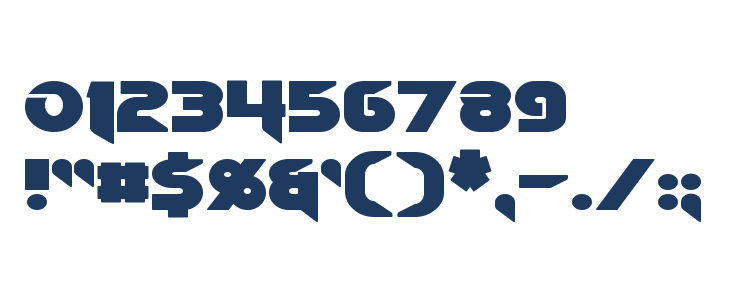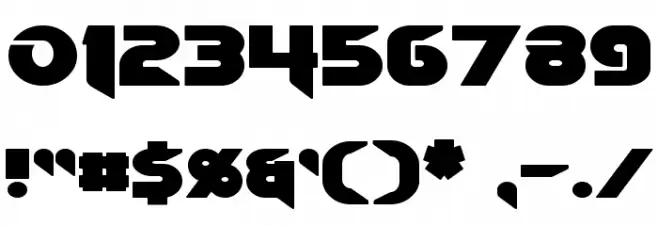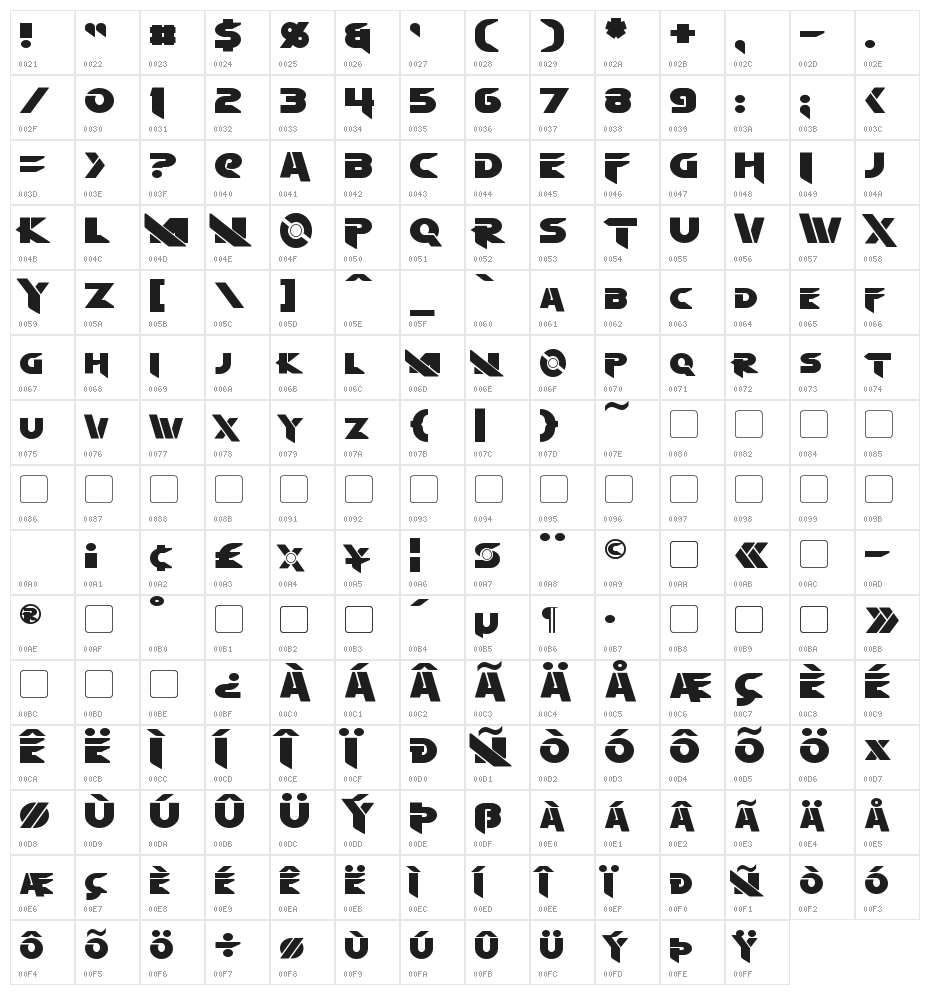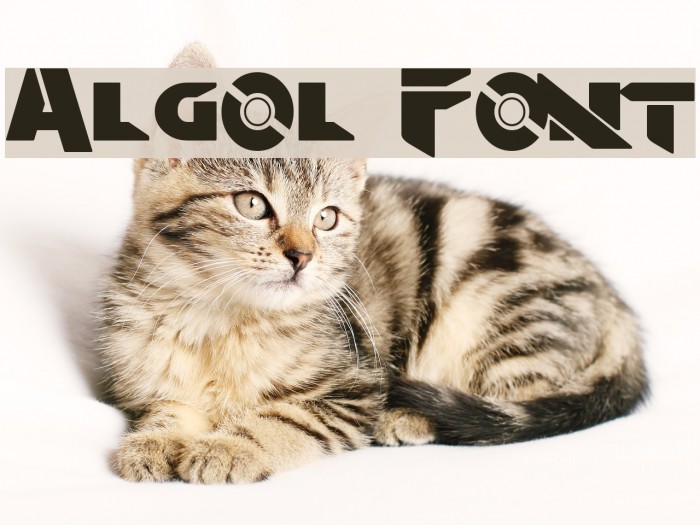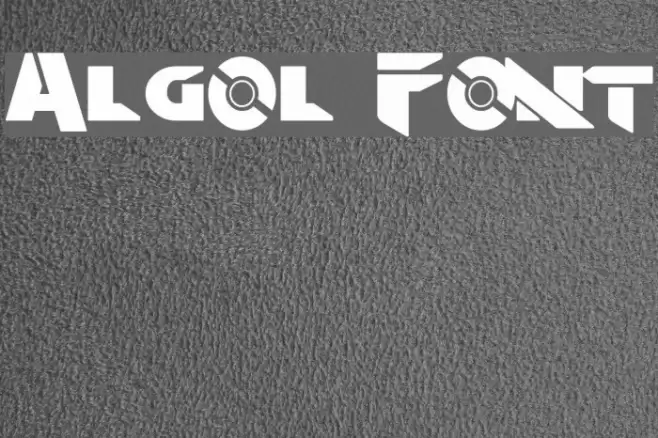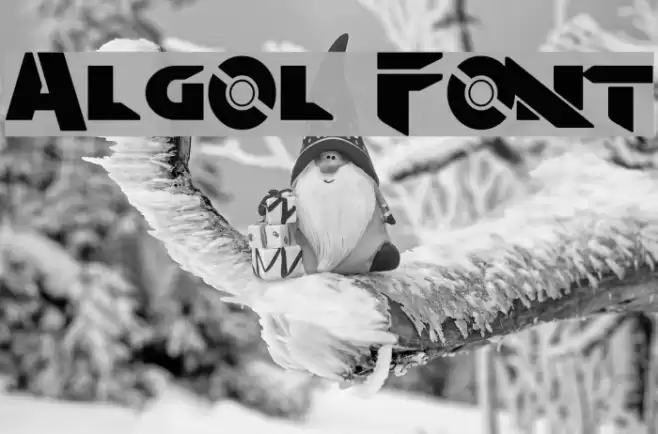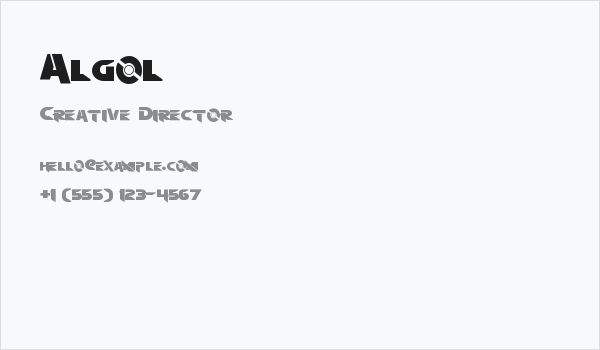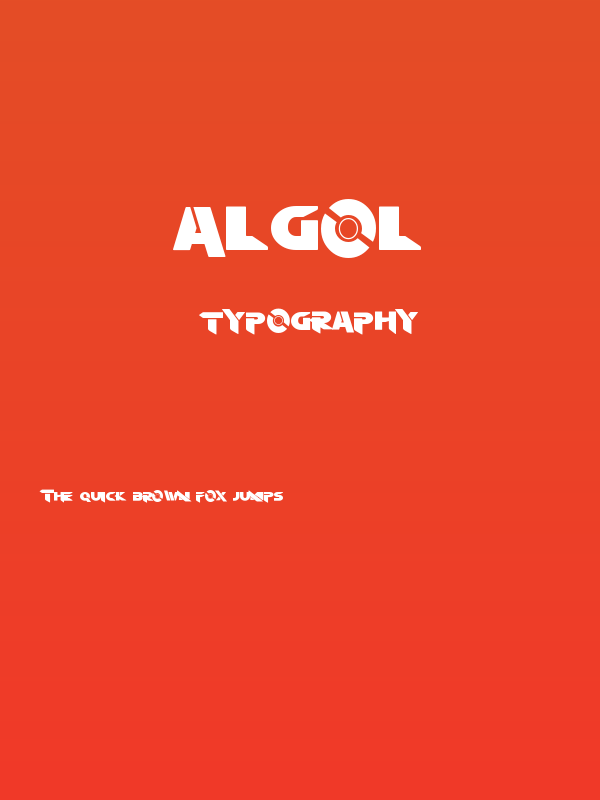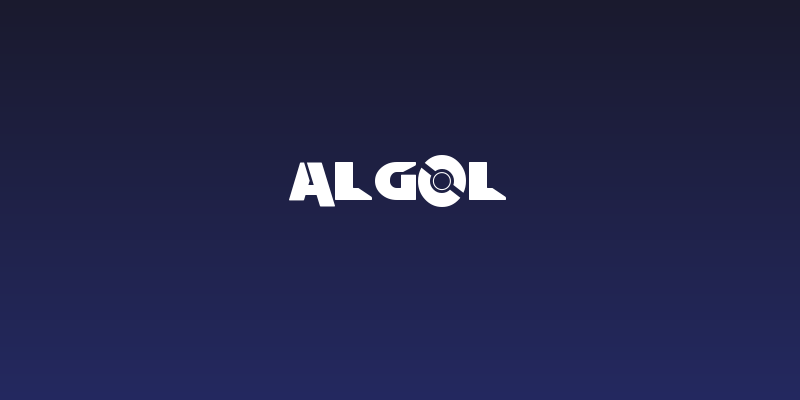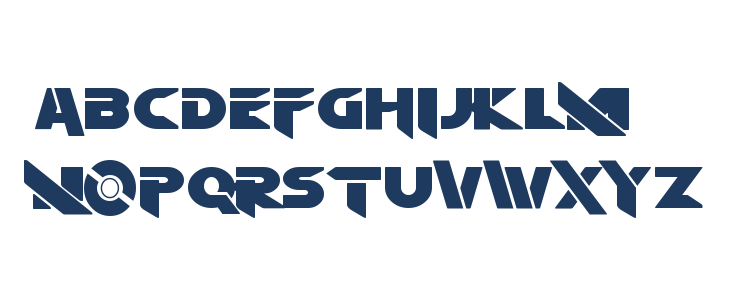
Algol Font
Algol Description
This font features a bold, futuristic design with geometric shapes and sharp angles. The characters are constructed with a combination of solid and negative spaces, creating a dynamic and visually striking appearance. The uppercase letters are particularly distinctive, with unique cutouts and angular forms that suggest a sense of movement and modernity. The numerals and special characters maintain this aesthetic, ensuring consistency across all glyphs. This font's design is ideal for projects that require a strong, contemporary look, such as technology branding, sci-fi themes, or modern art displays.
| Proposed Projects | Ideal for technology branding, sci-fi themes, modern art displays, and futuristic designs. |